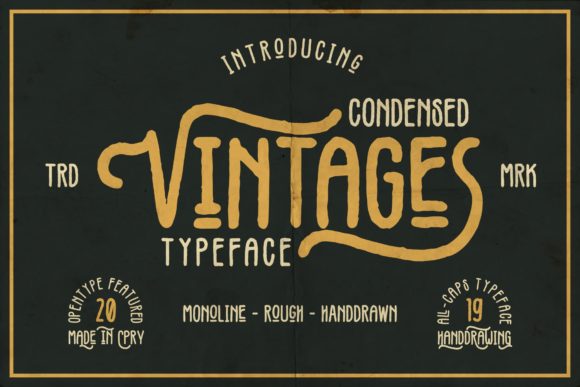
Welcome to the realm of Vintages Font, a captivating display font family that captures the essence of modern monoline brilliance. Through the lens of this remarkable font, Garisman Studio presents a masterpiece that harmonizes the elegance of classic typography with the vibrancy of hand-drawn artistry. Prepare to be mesmerized as you explore the boundless possibilities that await.
Vintages Font's aura of sophistication stems from its meticulously crafted all-caps characters, each boasting a bold and confident presence. Experience the allure of timeless aesthetics infused with a fresh, contemporary spirit. Whether you seek to craft striking logos, unleash your creativity in hand-lettering designs, or elevate your branding endeavors, Vintages Font stands as your steadfast companion.
Visualize the impact of Vintages Font adorning your product labels, adding a touch of distinction and charm. Picture the captivating headlines it will create on your posters, commanding attention and igniting curiosity. The versatility of this font knows no bounds, extending its reach to t-shirts, posters, and a myriad of other creative projects.
Let Vintages Font be your guiding light as you embark on a journey of artistic expression. Its meticulously designed curves and impeccable stroke balance will transform your designs into captivating masterpieces. Prepare to witness the transformation of ordinary text into extraordinary visual statements, leaving an indelible mark on the minds of your audience.